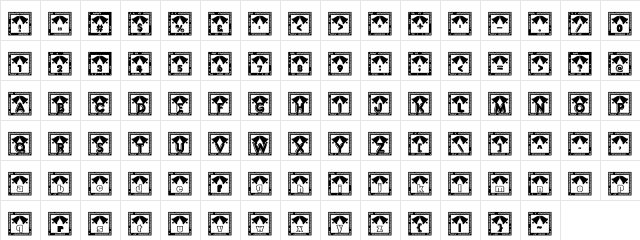
Holialpha decorative
Style: decorative
Design Context for Holialpha
Holialpha is built around its visual character rather than neutral utility - its distinctive forms are designed to make an impression at display sizes.
Font Pairing: Pair with a clean neutral sans-serif for body copy to let Holialpha's character lead without overwhelming the composition.
Pro Tip: Use Holialpha exclusively at display sizes - it was designed to be seen, not read at length. Let a neutral companion handle body copy.